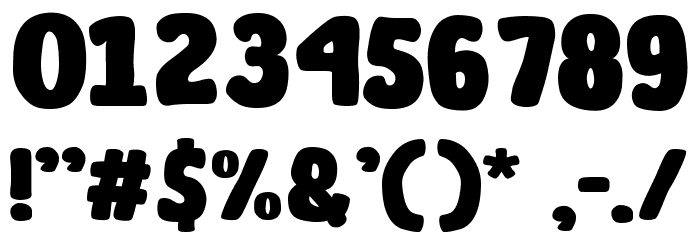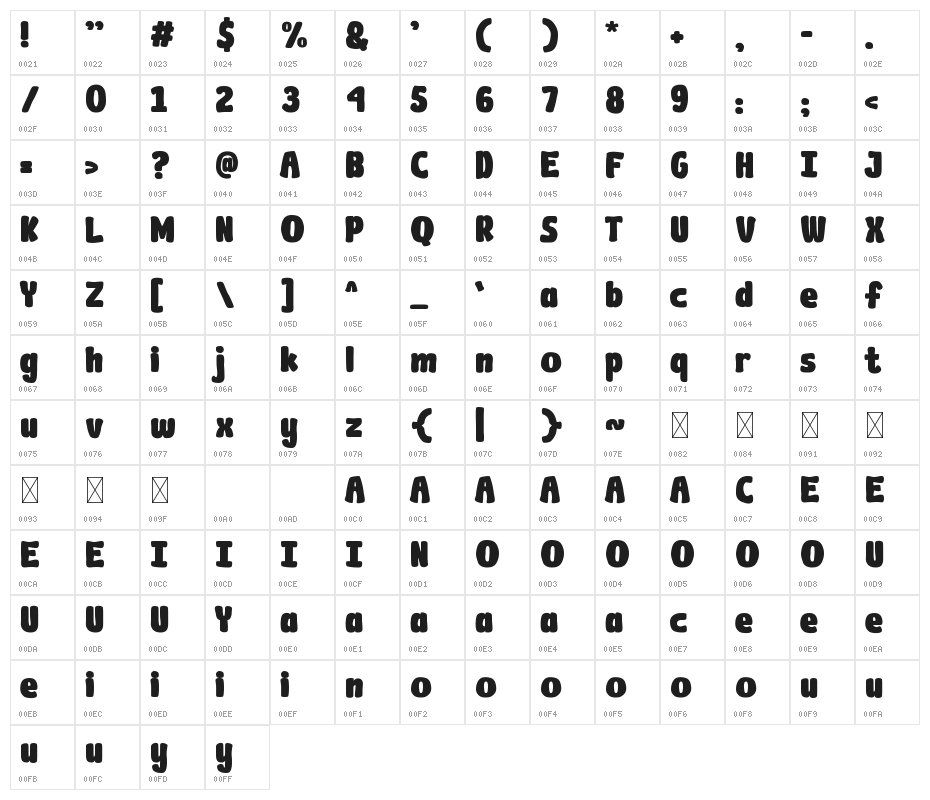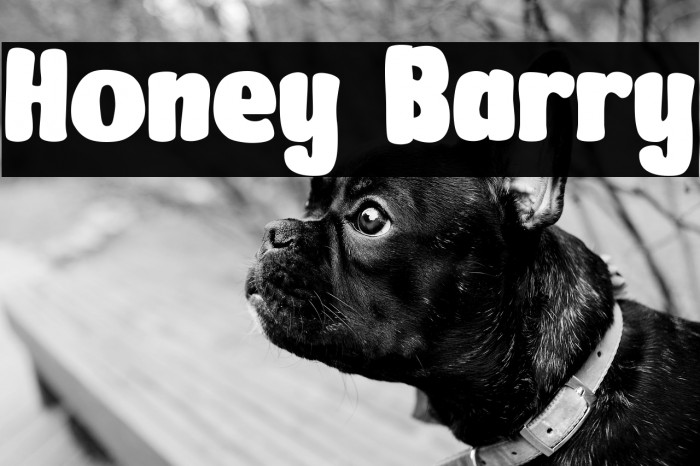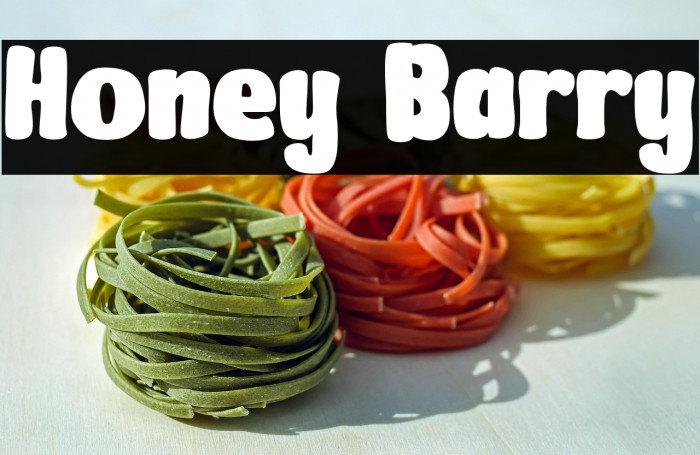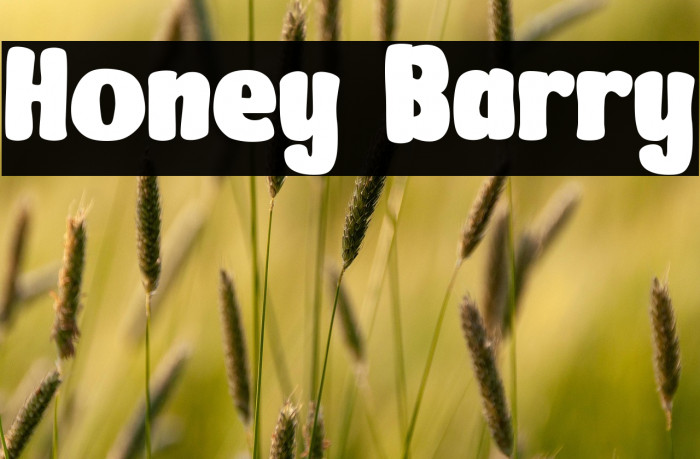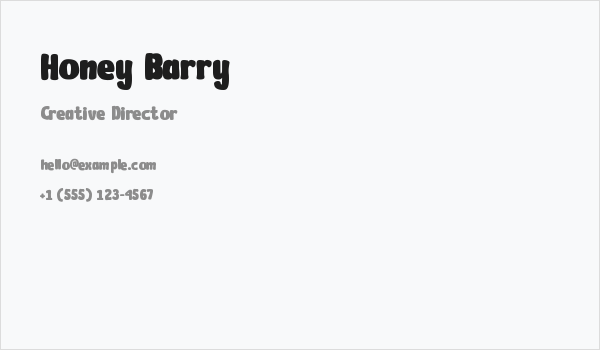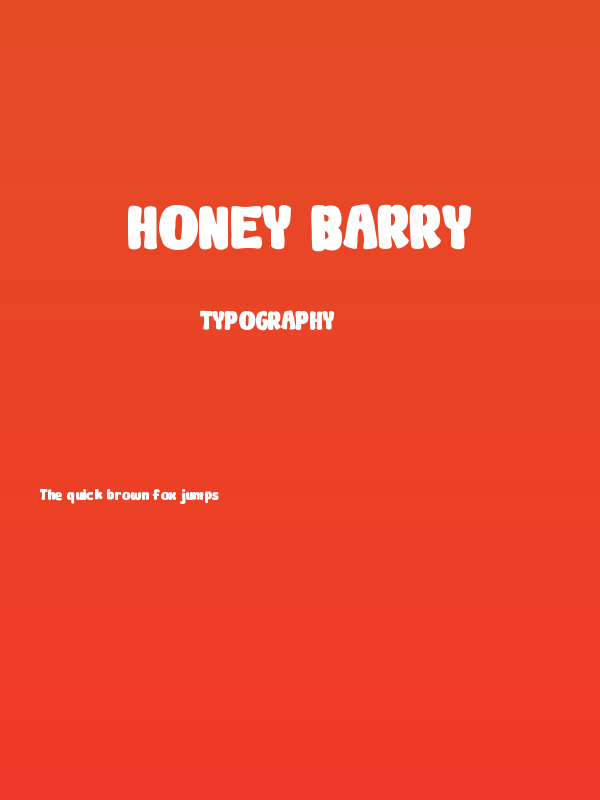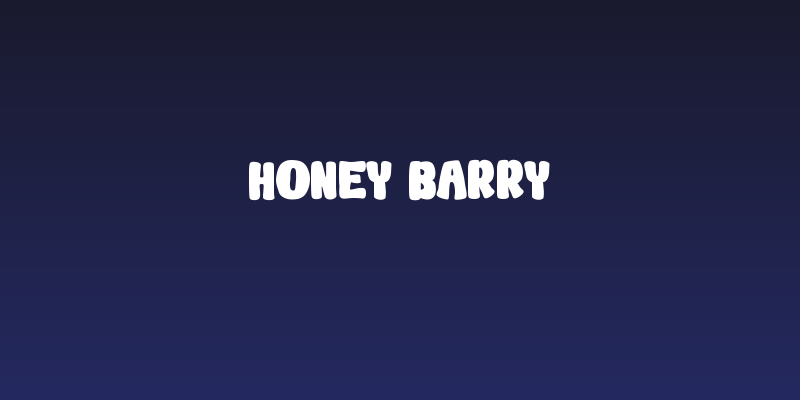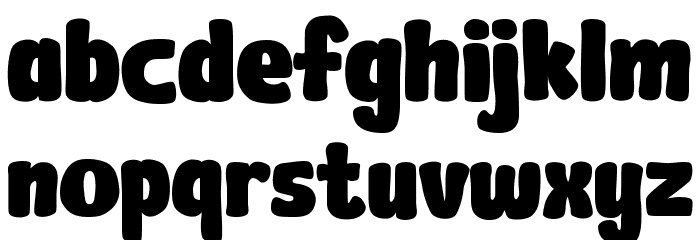
Honey Barry Font
Honey Barry Description
This font features a bold and playful design with rounded edges and a bubbly appearance. The letters are thick and have a soft, friendly feel, making them highly legible and approachable. The uppercase and lowercase characters maintain a consistent style, with a slight variation in height and width that adds to the font's charm. The numbers and special characters are equally bold, ensuring uniformity across all text elements. This font's design is reminiscent of retro styles, yet it maintains a modern touch, making it versatile for various applications.
| Overall Style | Playful, Retro, Modern |
| Proposed Projects | Ideal for children's books, playful branding, posters, and social media graphics. |